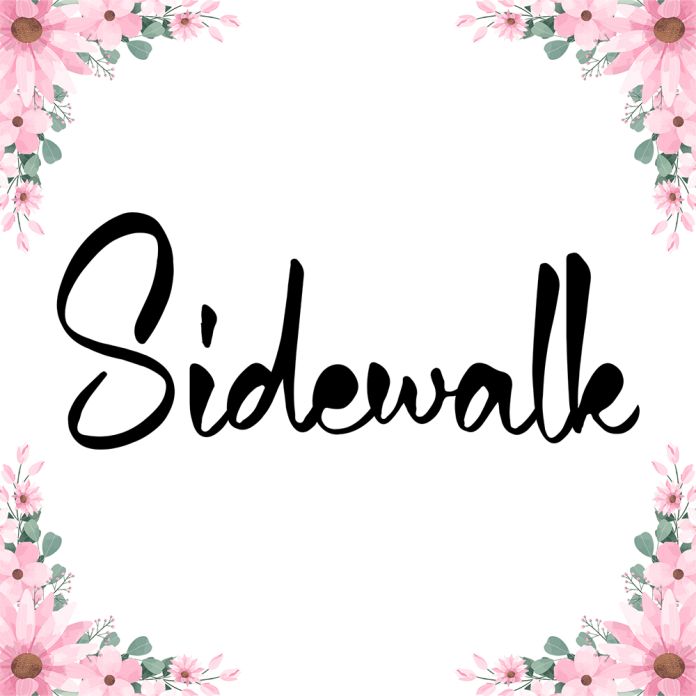
Sidewalk is an elegant and fashionable handwritten font that is the perfect combination of style and grace. Each letter is crafted with intricate details, capturing the look and feel of a hand-drawn script. With its modern, yet refined design, this font is ideal for high-end fashion branding, invitations, and other projects that require a personal and polished touch.